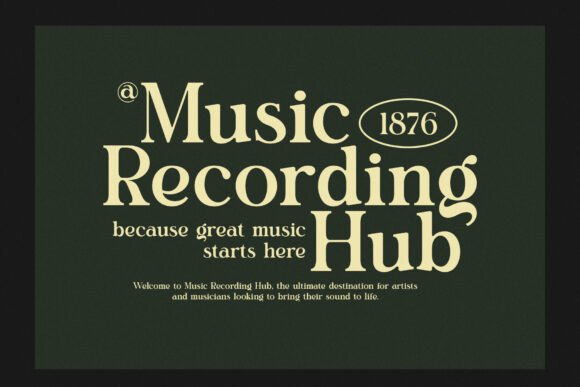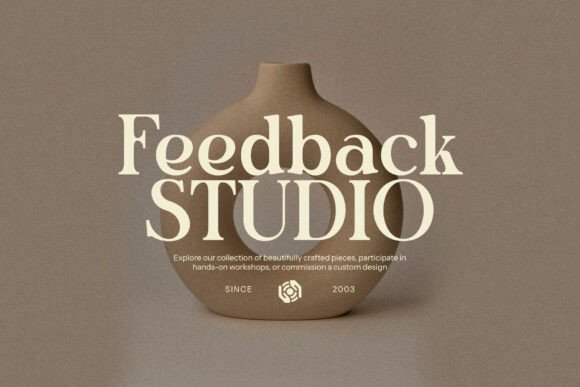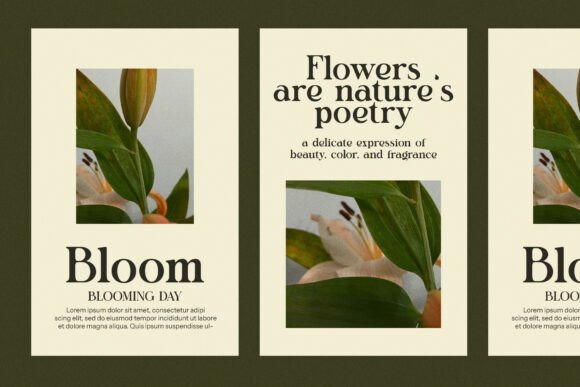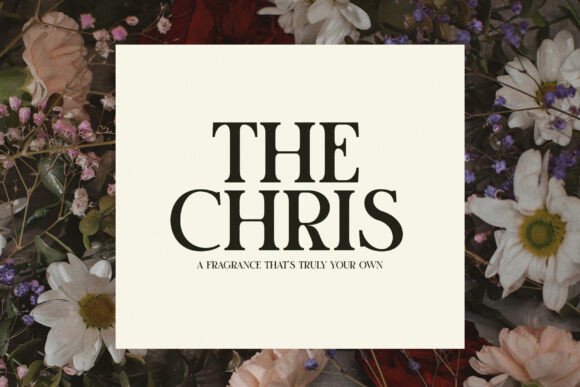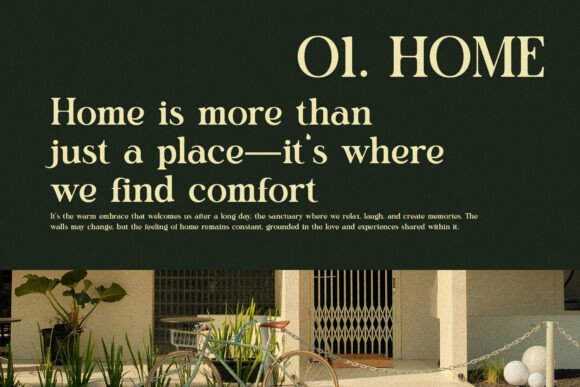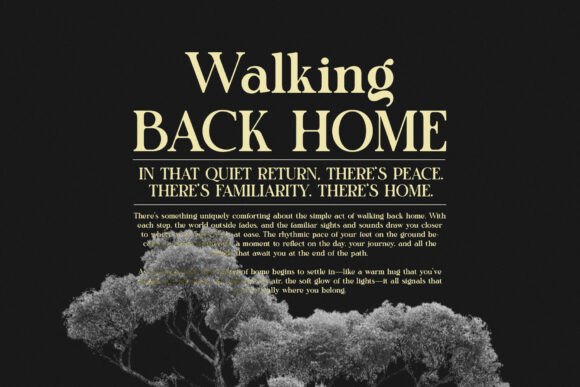
Introducing Fegiran Serif Font
Fegiran Serif Font is a stunningly modern serif typeface designed to bring elegance and sophistication to every project. With its gracefully balanced forms and artistic details, Fegiran captures attention and enhances your creative vision. Its distinctive design is complemented by beautifully crafted ligatures and versatile calligraphic alternatives, making it a go-to choice for projects that demand a luxurious yet approachable aesthetic.
What I Love About Fegiran
- ✨ Elegant and sophisticated design: Fegiran’s refined serifs and smooth curves make it perfect for high-end branding, magazine editorials, and boutique advertisements.
- ✅ Exceptional legibility: Even in detailed or intricate compositions, Fegiran’s clear and balanced forms ensure that your message gets across.
- 💡 Versatile and flexible: With its range of ligatures, calligraphic alternatives, and stylistic alternates, Fegiran can adapt to any design style or project requirement.
Honest Review: The Not-Perfect-but-Almost Section
While Fegiran Serif Font is an amazing addition to any design project, there are a few minor quirks to be aware of:
- ⚠️ Limited availability of certain characters: Some users have reported issues with specific characters or glyphs, so be sure to test the font thoroughly before finalizing your project.
- 🤔 Can be overwhelming for beginners: With so many features and options, Fegiran might be daunting for those new to typography or font design.
The Story Behind Fegiran
Fegiran Serif Font was designed with the goal of creating a typeface that embodies both luxury and approachability. Inspired by the elegant lines of classic serif fonts and the artistic details of modern calligraphy, Fegiran’s creator aimed to craft a font that would elevate any design project. Whether used for branding, editorials, or packaging, Fegiran is designed to bring a touch of sophistication and elegance to your work.
| Q: What is Fegiran Serif Font best suited for? | A: Fegiran is ideal for high-end branding, magazine editorials, boutique advertisements, packaging designs, and any project requiring a luxurious yet approachable aesthetic. |
| Q: Is Fegiran easy to read? | A: Yes, Fegiran’s refined serifs and smooth curves ensure exceptional legibility, even in detailed or intricate compositions. |